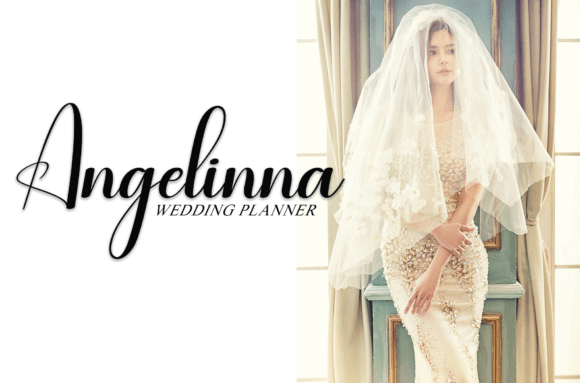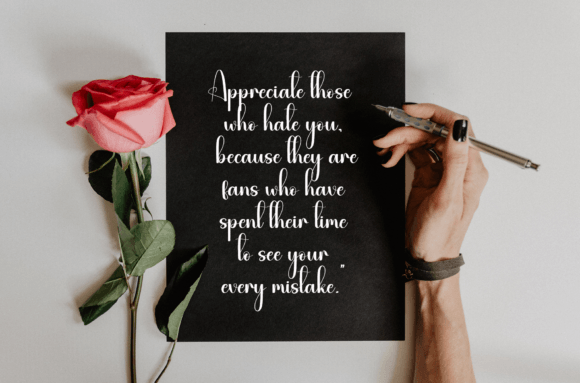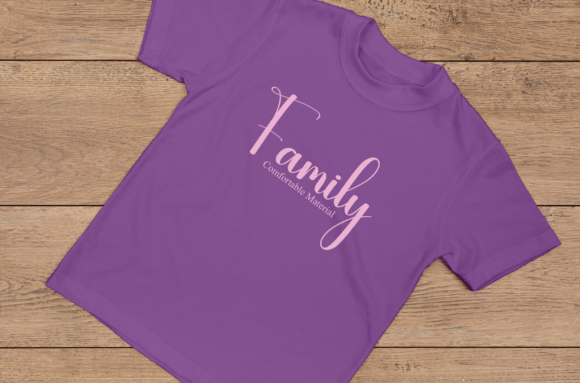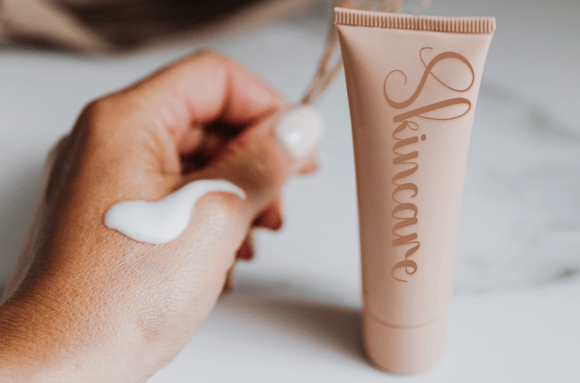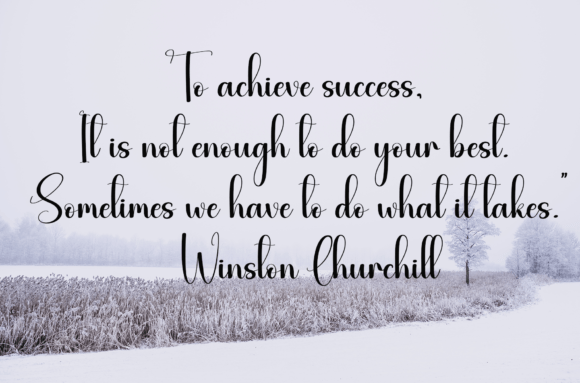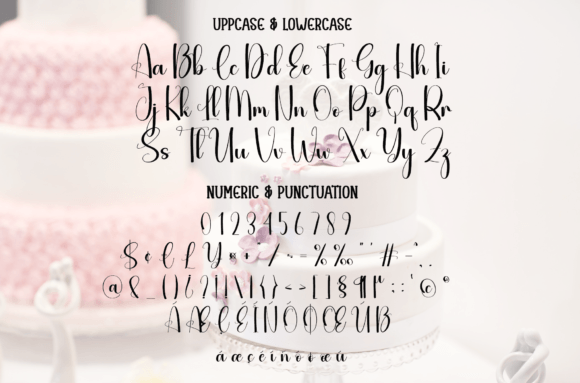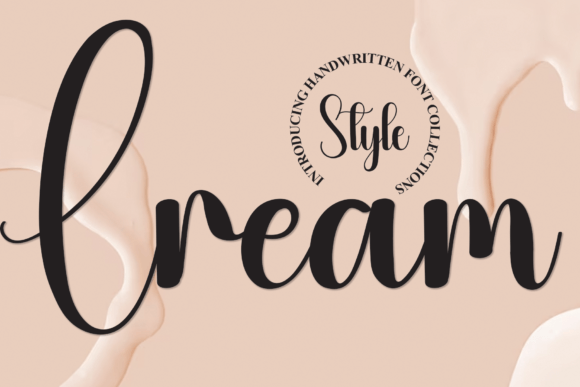
Cream Font: The Sweet and Friendly Handwritten Font for Your Design Needs
Are you looking for a font that can add a touch of sweetness and friendliness to your designs? Look no further than the Cream Font! This beautiful handwritten font is perfect for creating wedding invitations, cards, and other designs that require a fun and playful touch. In this article, we’ll take a closer look at the Cream Font, its features, and how you can use it to elevate your designs.
What is Cream Font?
Cream Font is a sweet and friendly handwritten font that is designed to bring a touch of warmth and personality to your designs. Its fresh and neat appearance makes it ideal for a variety of design projects, from wedding invitations and cards to social media graphics and more. The font’s playful and whimsical feel is sure to capture the attention of your audience and leave a lasting impression.
Key Features of Cream Font
- Handwritten style: Cream Font has a beautiful handwritten style that gives it a personal and unique touch.
- Sweet and friendly: The font’s sweet and friendly appearance makes it perfect for designs that require a playful and approachable feel.
- Fresh and neat: The font’s fresh and neat appearance ensures that it remains legible and easy to read, even at smaller sizes.
- Versatile: Cream Font is versatile and can be used for a variety of design projects, from wedding invitations and cards to social media graphics and more.
Uses of Cream Font
Cream Font is a versatile font that can be used for a variety of design projects. Here are some of the most popular uses of this beautiful font:
- Wedding Invitations: Cream Font is perfect for creating beautiful and elegant wedding invitations that set the tone for the big day.
- Cards: The font’s playful and whimsical feel makes it ideal for creating greeting cards for special occasions such as birthdays, anniversaries, and more.
- Social Media Graphics: Cream Font can be used to create engaging and eye-catching social media graphics that capture the attention of your audience.
- Branding: The font’s unique and playful feel makes it perfect for branding projects that require a touch of personality and whimsy.
Tips for Using Cream Font
Here are some tips for using Cream Font in your designs:
- Pair it with a bold font: Pair Cream Font with a bold font to create a beautiful contrast that adds depth and interest to your design.
- Use it for headings: Cream Font is perfect for headings and titles, so use it to add a touch of personality and whimsy to your design.
- Experiment with colors: Cream Font looks great in a variety of colors, so experiment with different colors to find the one that works best for your design.
Cream Font is a beautiful and versatile handwritten font that is perfect for designers and crafters who want to add a touch of sweetness and friendliness to their designs. Its fresh and neat appearance, combined with its playful and whimsical feel, makes it ideal for a variety of design projects, from wedding invitations and cards to social media graphics and more. With its ease of use and flexibility, Cream Font is sure to become a staple in your font collection.